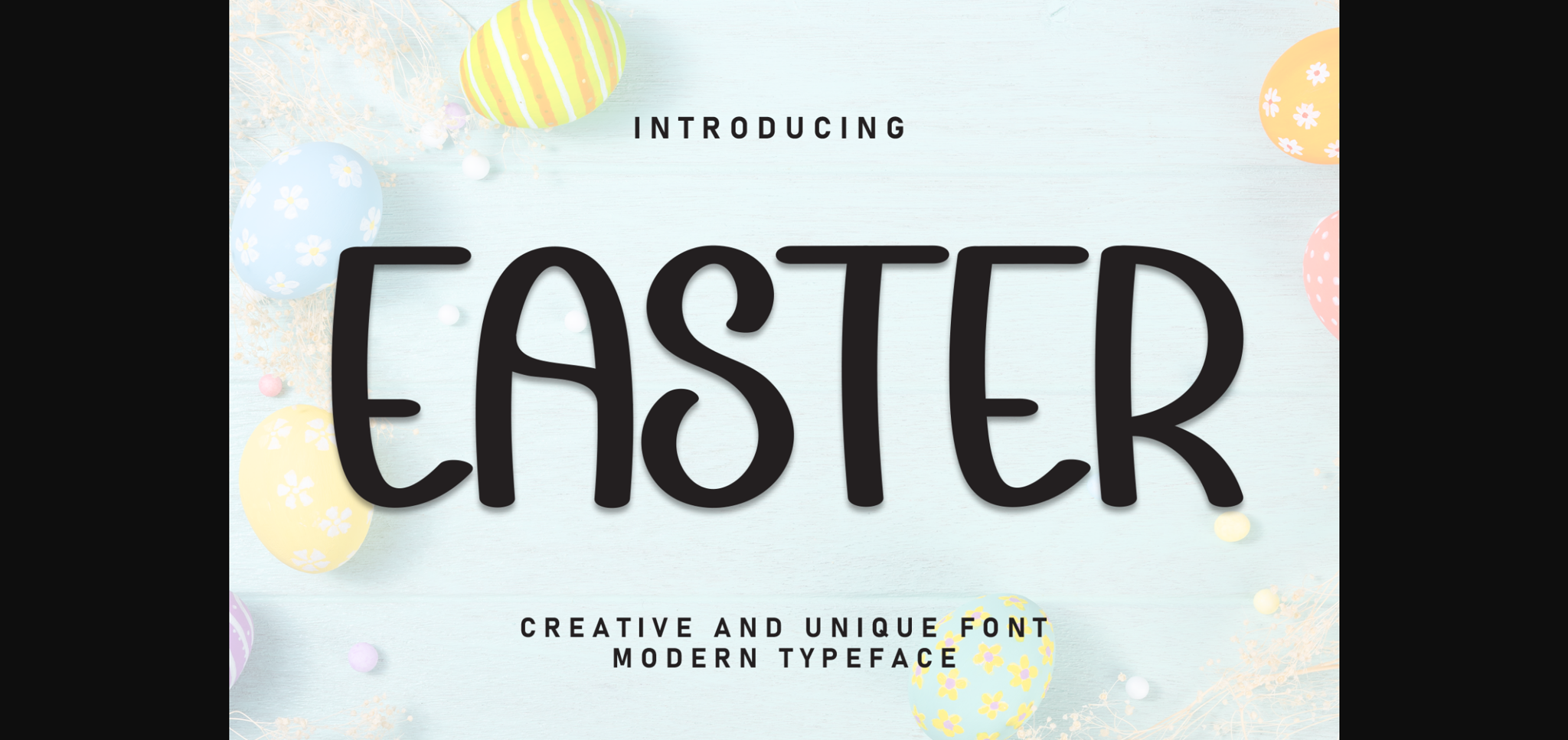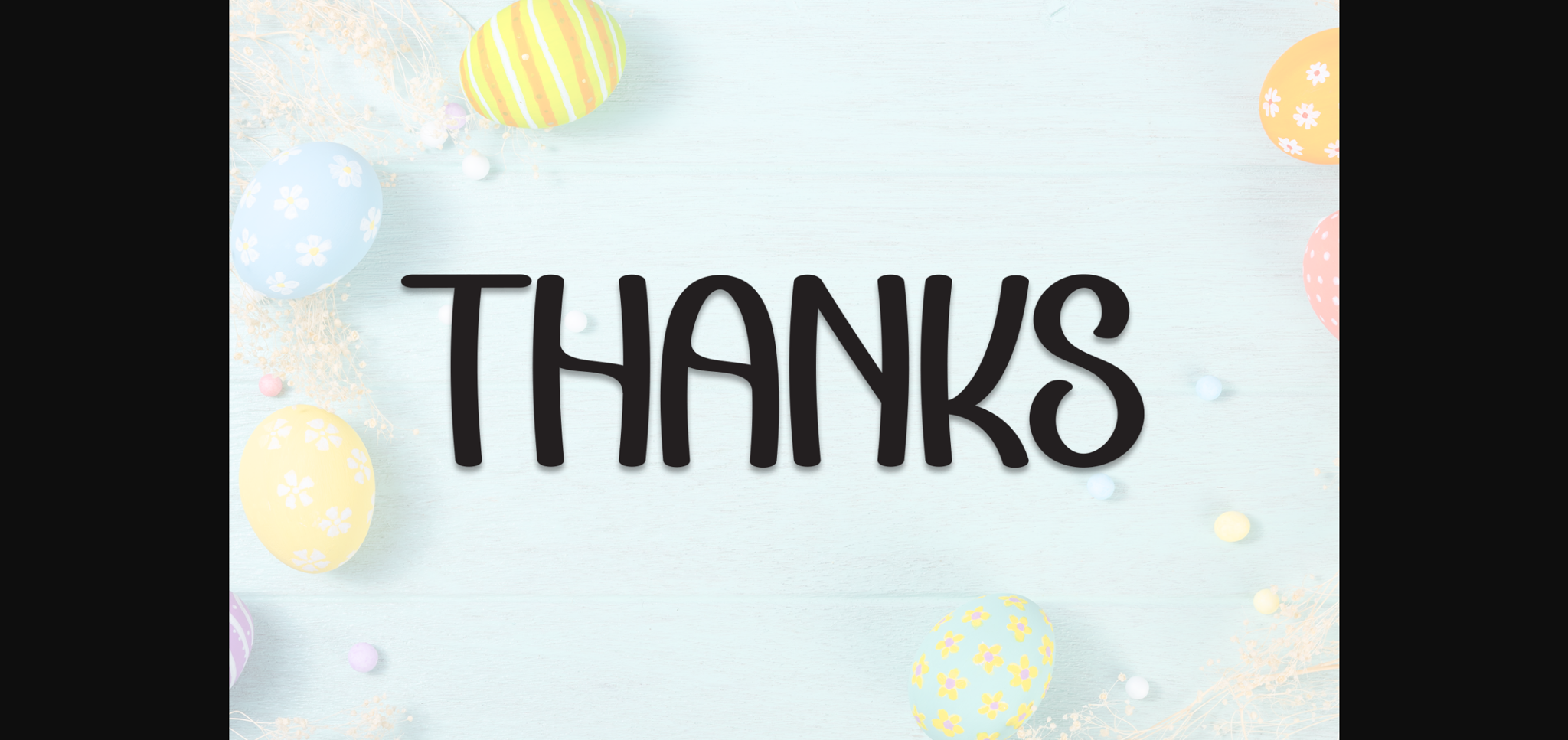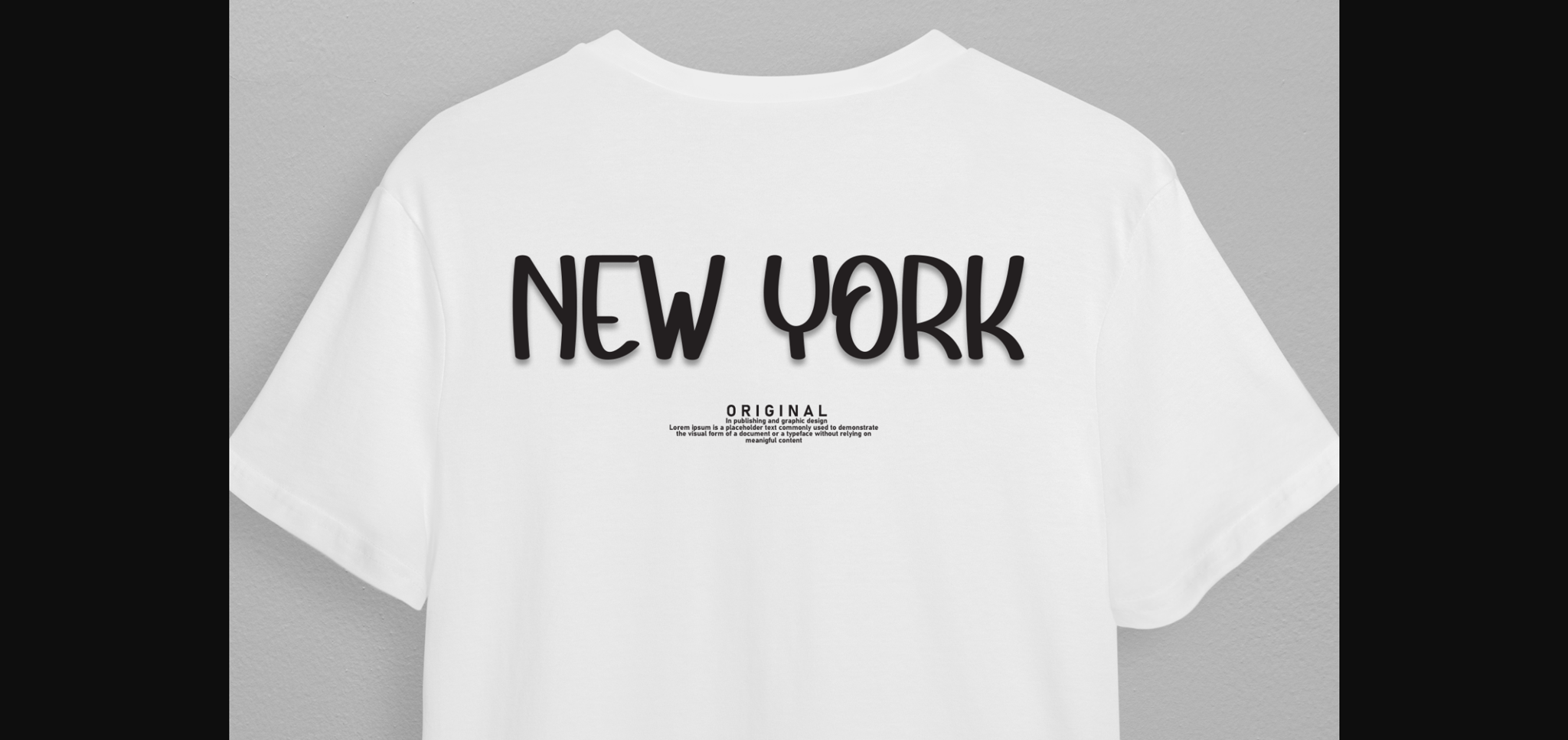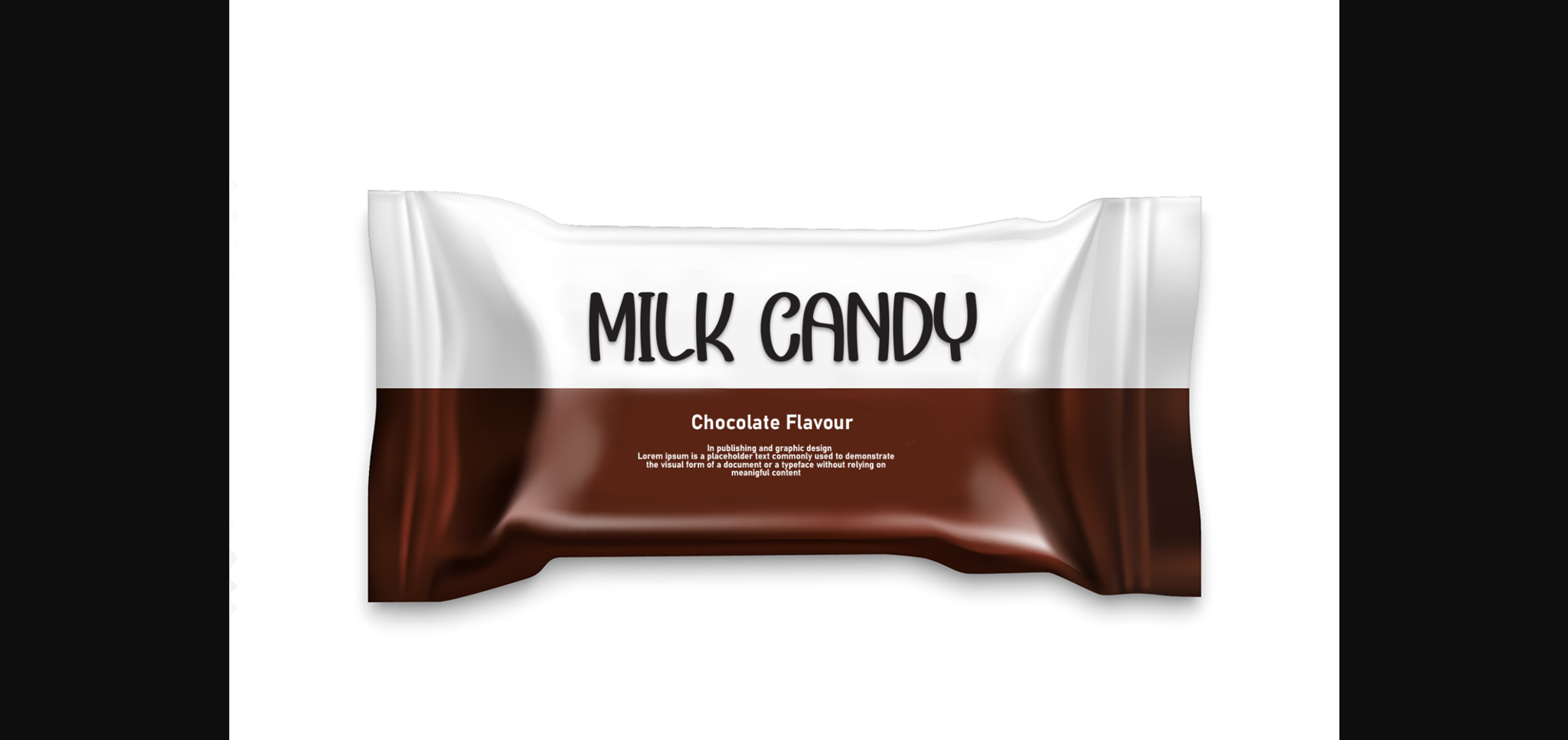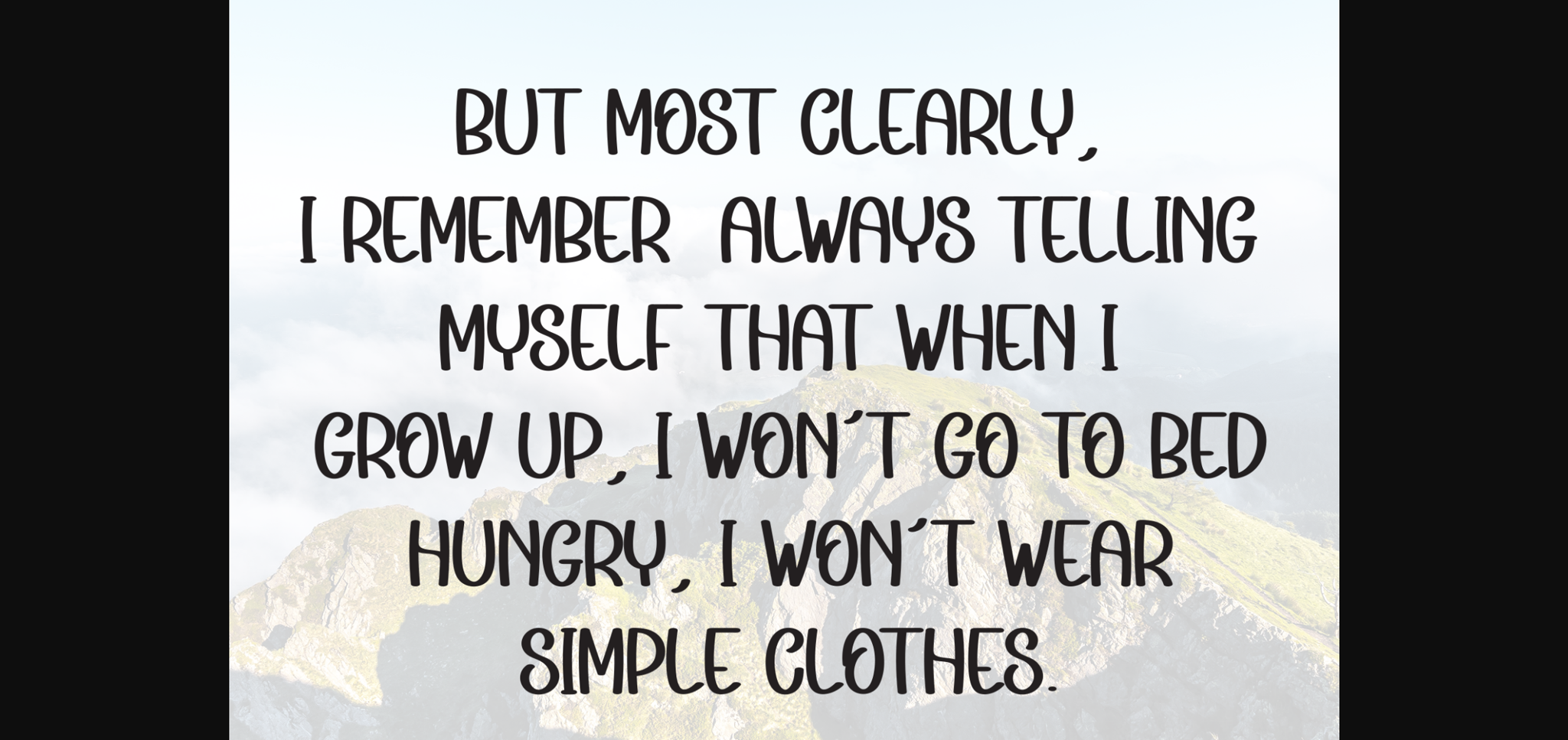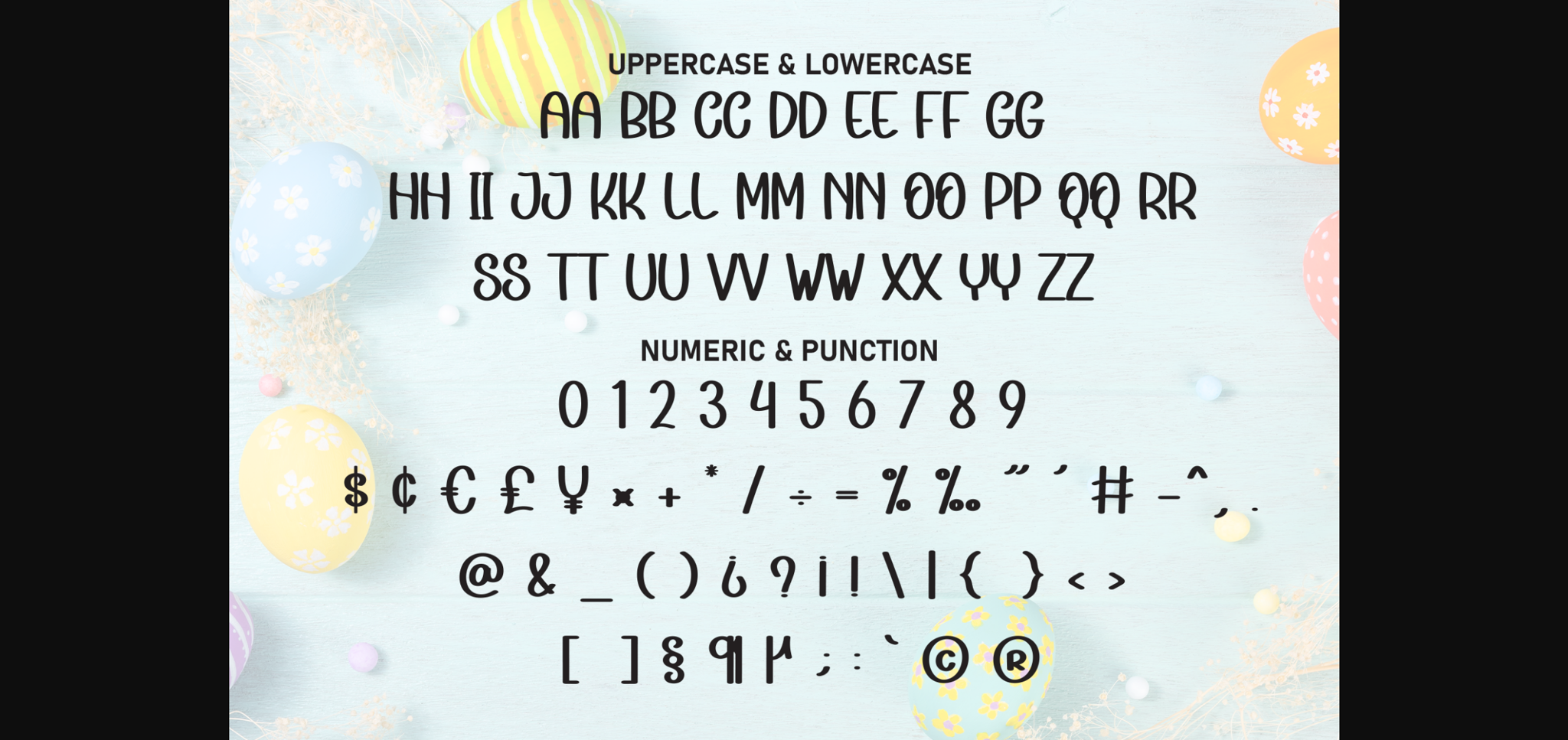
Easter Font
About Easter Font
Easter is a sweet and friendly sans-serif font. Cute and versatile, this font is ideal for writing wedding invitations, cards, or any other design that might need a fun touch!